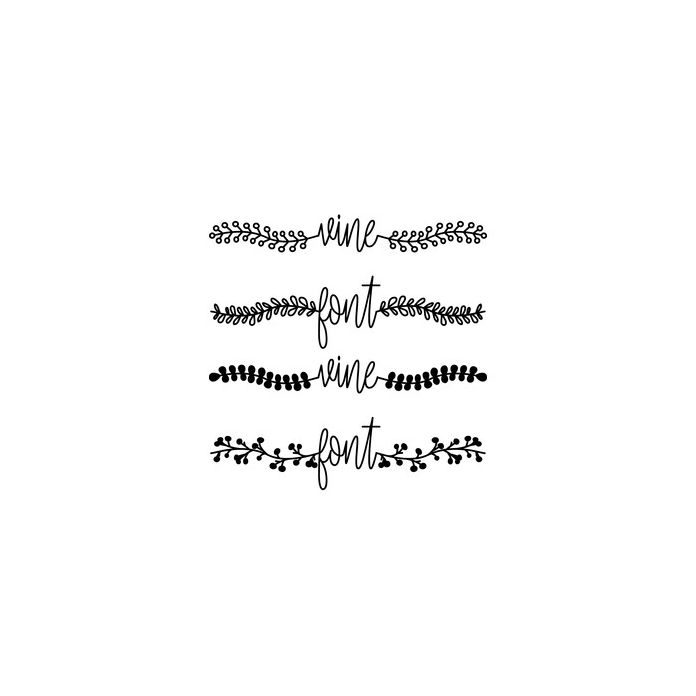
This font includes all lowercase. Uppercase and numbers have been replaced by a variety of vine and branch designs. Mix and match to create your own unique designs. Vine font has a sister font (Branches font) which you can use together.